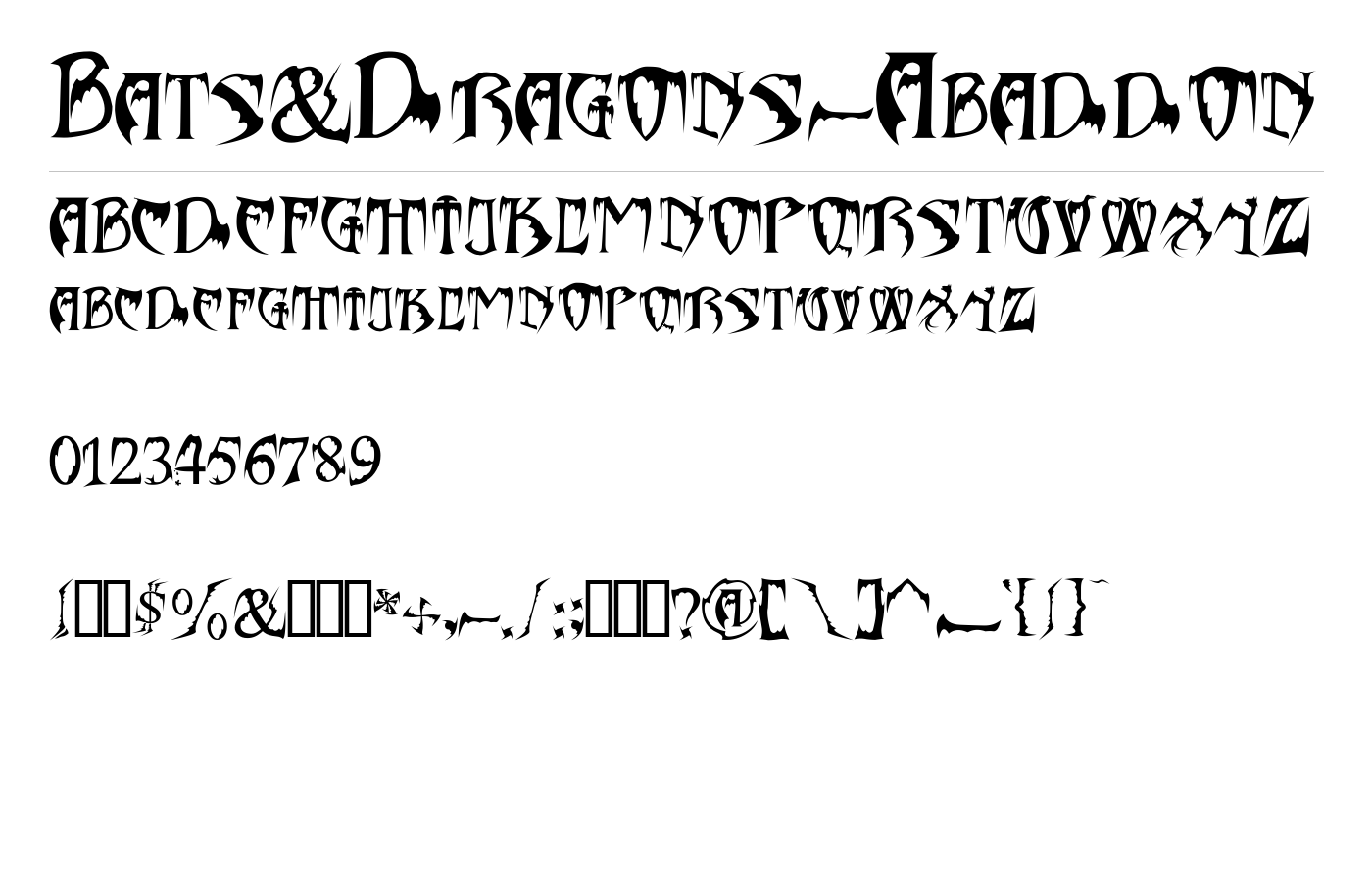
Bats&Dragons-Abaddon is a decorative serif font with a dark, gothic style that features sharp, jagged edges and bold, dramatic strokes. Its unique letterforms evoke a mysterious, fantasy-inspired mood, making it ideal for branding, posters, or headlines in genres like horror, metal music, or fantasy fiction where an intense, edgy atmosphere is desired. This font stands out for its theatrical personality and ornamental flair, perfect for grabbing attention in creative and thematic designs.
| Font family | Bats&Dragons-Abaddon Font |
| Designer | Bats&Dragons-Abaddon |